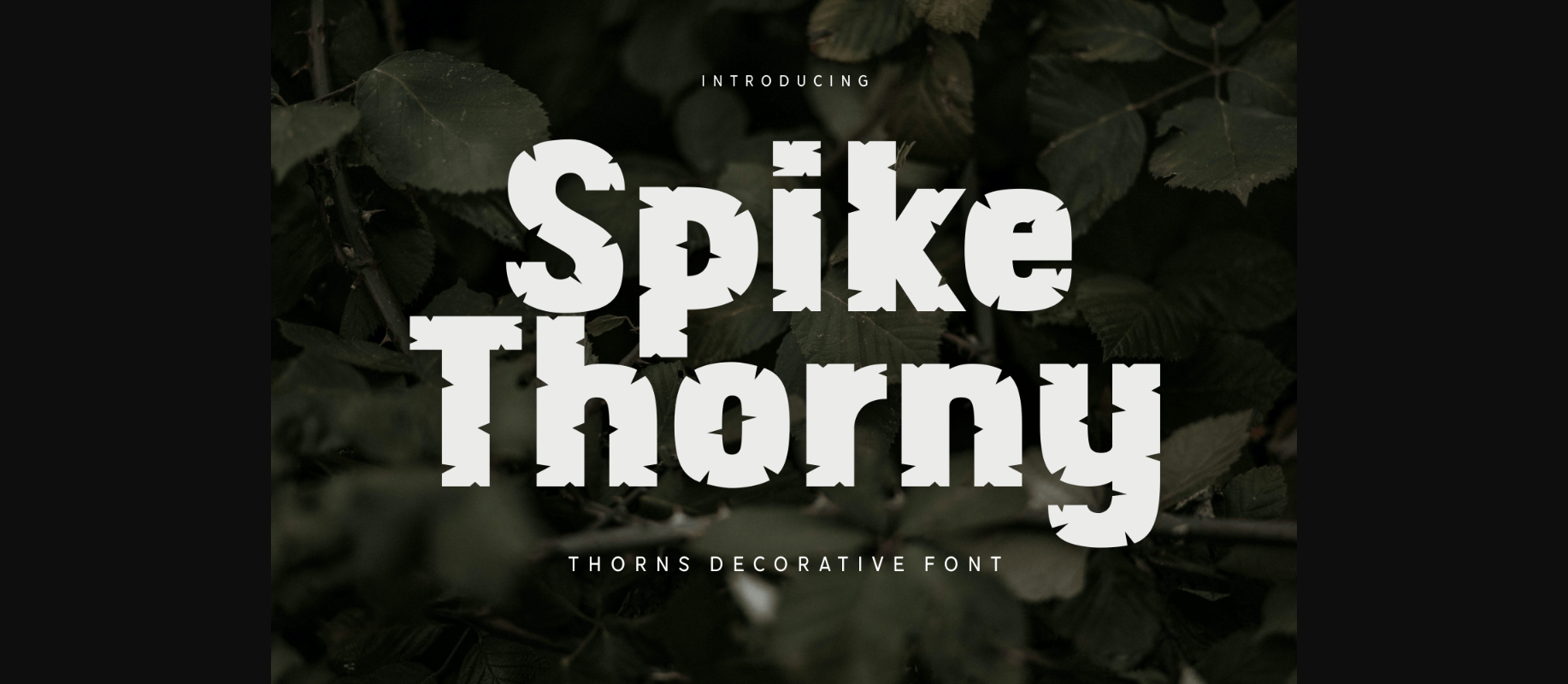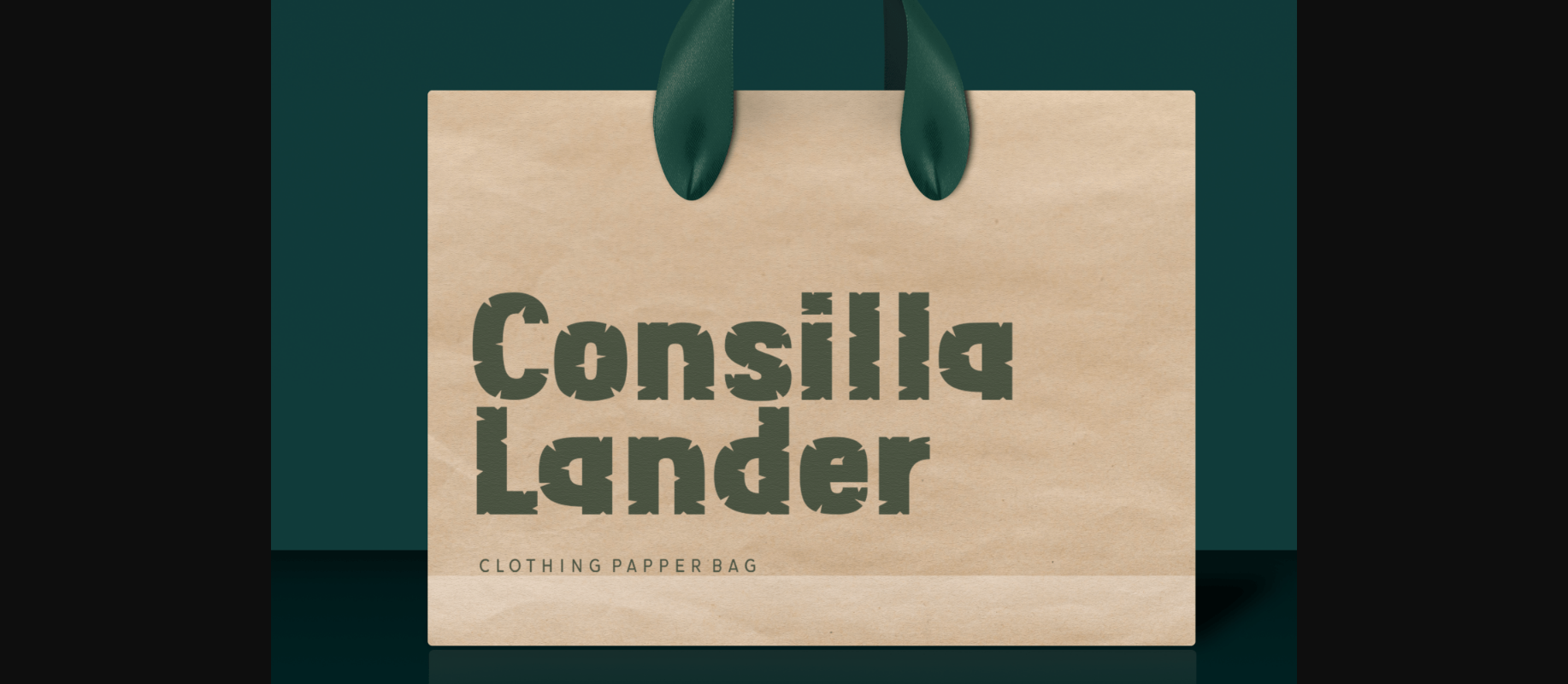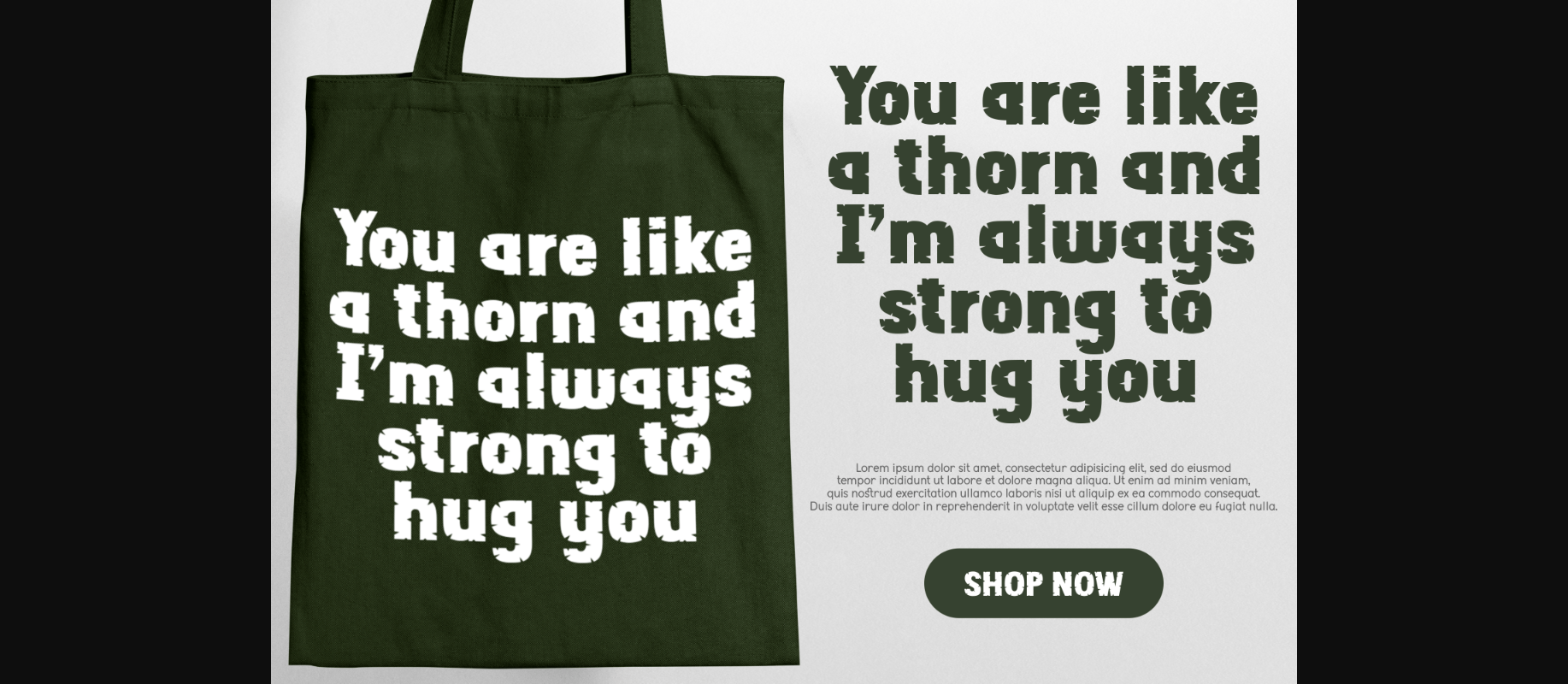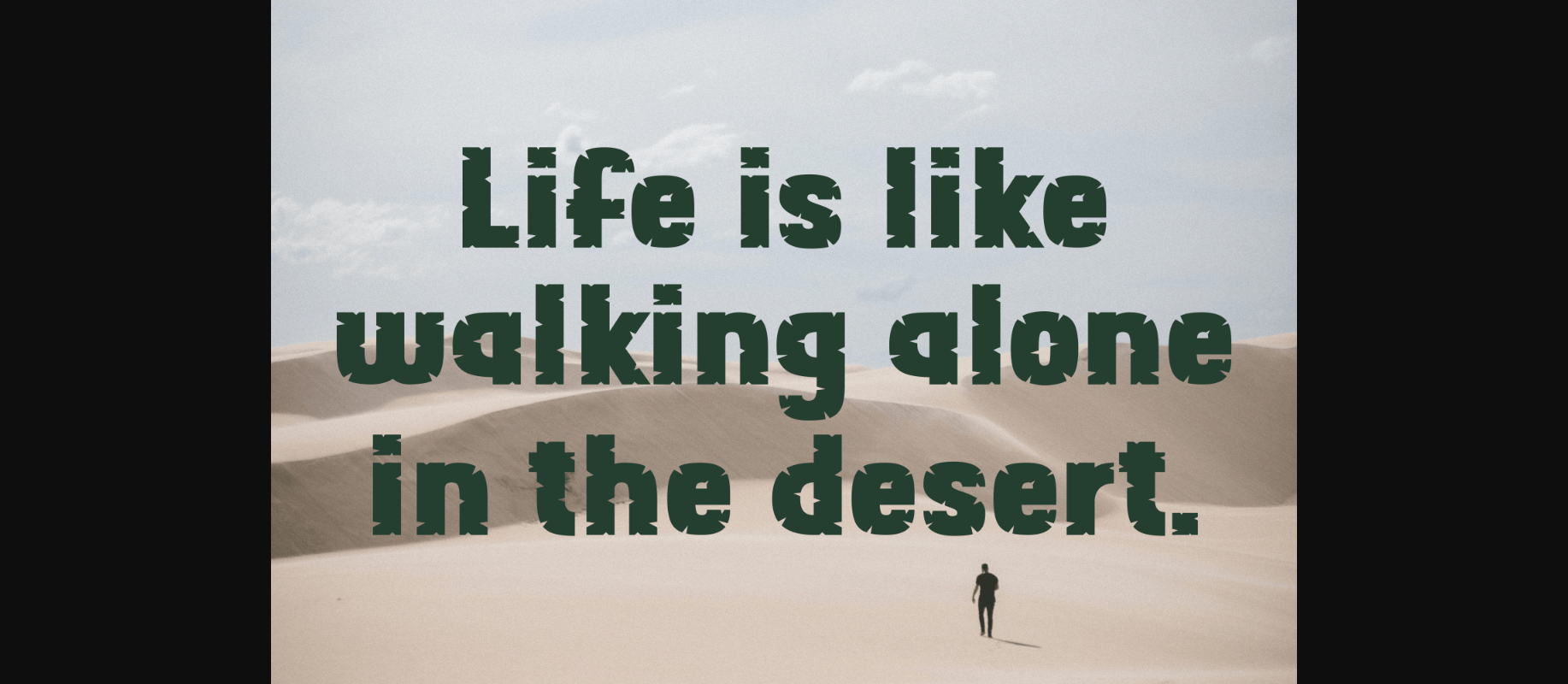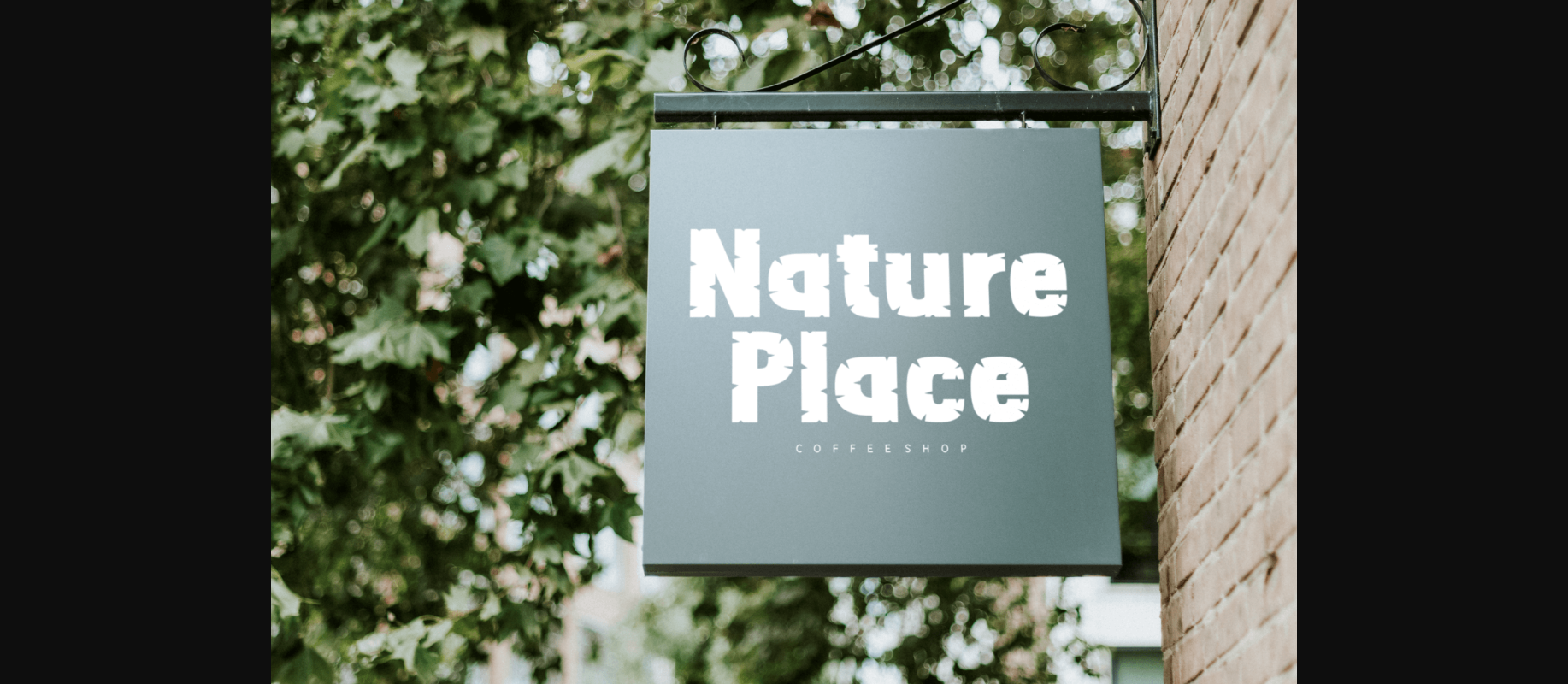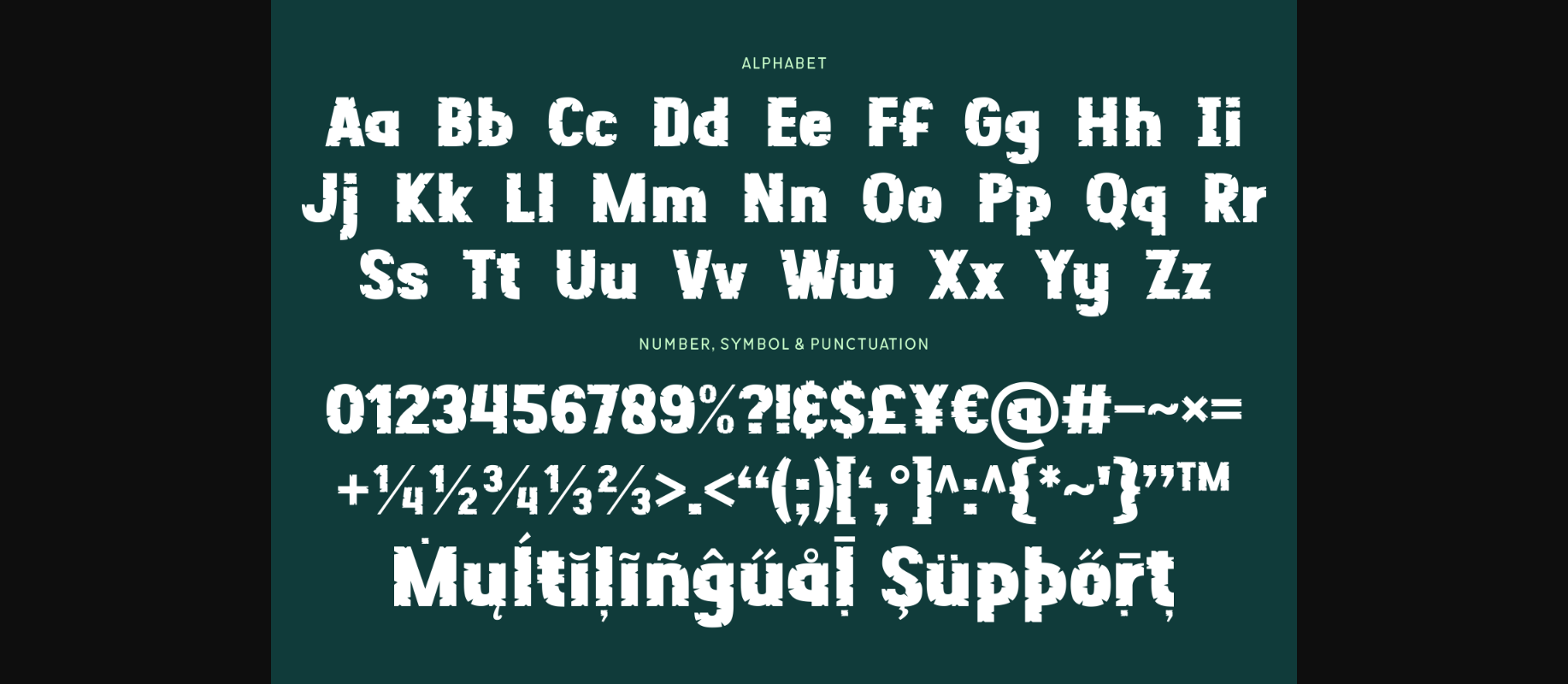
Spike Thorny Font
About Spike Thorny Font
Spike Thorny is a decorative font with a fierce look. Express yourself with this unique typeface that will definitely attract attention! Featuring spiked shapes on the characters, this creative font is sure to liven your designs and crafts.